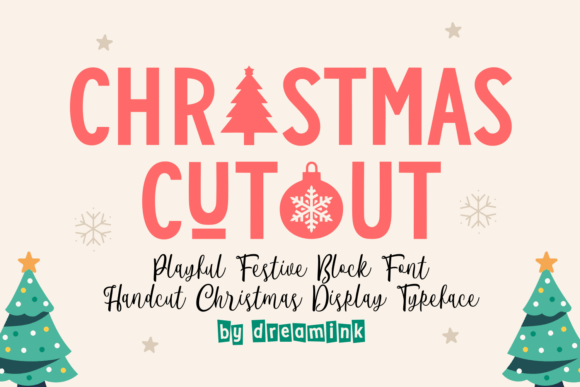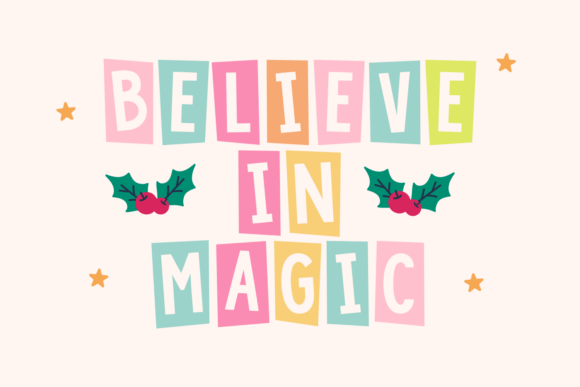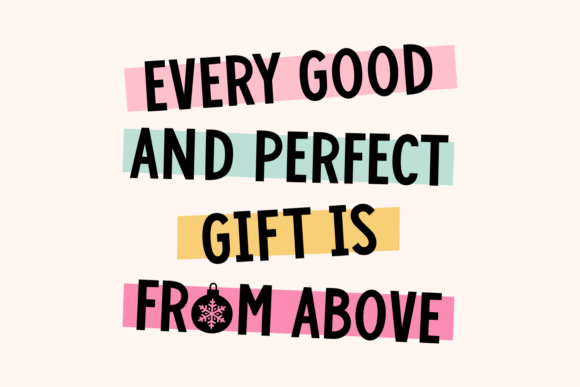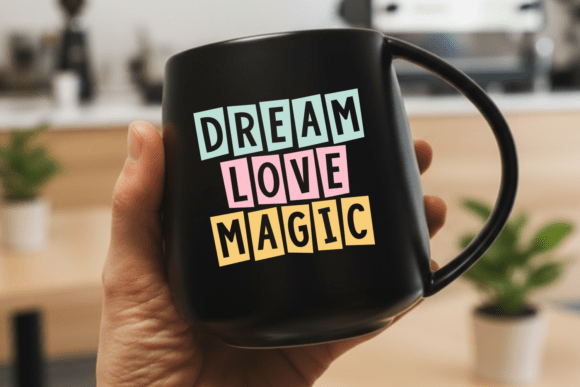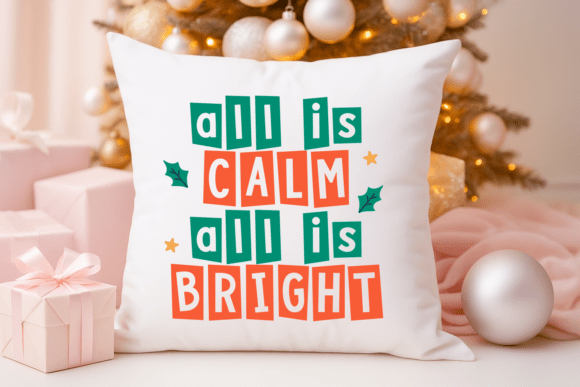
Bring Joy and Cheer to Your Designs with Christmas Cutout Font
It’s the most wonderful time of the year! The holiday season is upon us, and what better way to spread the cheer than with a festive and playful font that captures the spirit of Christmas? Introducing Christmas Cutout, a delightful block decorative display font that’s sure to make your designs shine with joy and festivity!
A Hand-Cut, Whimsical Touch
Each decorative Christmas Cutout letter feels like it’s been lovingly cut out by hand, giving your words a whimsical, crafty, and heartwarming touch. The font’s bold shapes and slightly quirky tilts evoke a sense of nostalgia and playfulness, perfect for adding a personal touch to your designs. Whether you’re creating Christmas cards, festive invitations, holiday merch, or cheerful gift tags, Christmas Cutout is the perfect choice to make your message sparkle with charm!
Christmas Cutout is a versatile font that’s perfect for designers and crafters alike. With its easy-to-use PUA encoding, all special characters and decorative elements are easily accessible without additional software. This means you can focus on creating stunning designs without any hassle. The font is ideal for a variety of projects, including:
- Christmas cards and invitations
- Holiday merch, such as t-shirts and mugs
- Cozy t-shirt designs and cheerful gift tags
- Festive posters and social media graphics
A Festive Color Palette
Christmas Cutout boasts a delightful pastel-meets-festive color palette that’s sure to get you in the holiday spirit! The font’s color scheme is both modern and traditional, making it perfect for a wide range of designs. Whether you’re going for a bold and bright look or a more subtle and sophisticated one, Christmas Cutout has got you covered.
Make Your Message Sparkle
With Christmas Cutout, you can add a touch of magic to your designs and make your message sparkle with charm. The font’s playful and festive vibe is sure to capture the hearts of your audience and leave a lasting impression. Whether you’re creating something merry, magical, or modern, Christmas Cutout is the perfect choice to bring the joy of the holiday season to life.
- Playful and festive block decorative display font
- Hand-cut, whimsical touch
- Bold shapes and slightly quirky tilts
- Pastel-meets-festive color palette
- PUA encoding for easy access to special characters and decorative elements
- Perfect for Christmas cards, festive invitations, holiday merch, and more
In conclusion, Christmas Cutout is a must-have font for anyone looking to add a touch of festive fun to their designs. With its playful and whimsical vibe, bold shapes, and pastel-meets-festive color palette, this font is sure to capture the hearts of your audience and leave a lasting impression. So why wait? Get Christmas Cutout today and start creating designs that sparkle with joy and cheer!